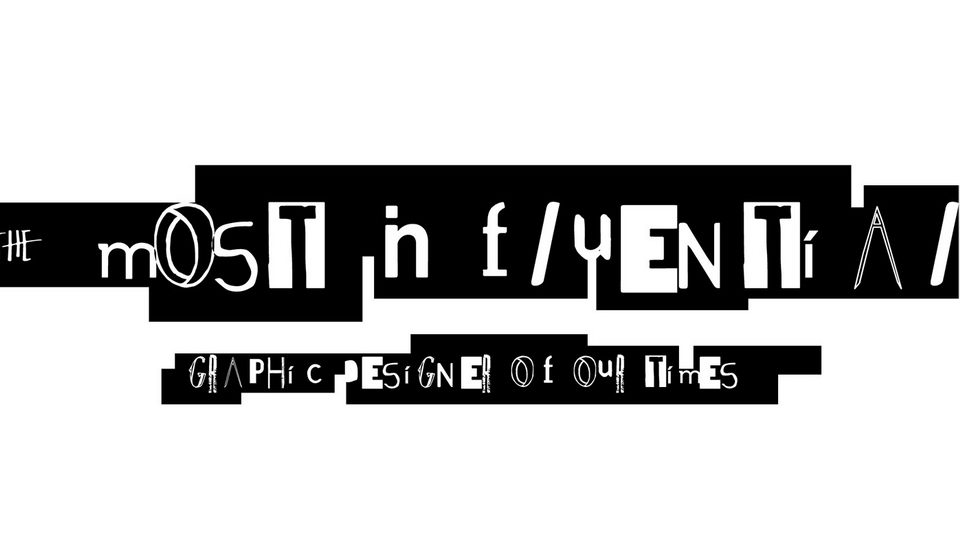
Cool David Carson Font Ideas
Cool David Carson Font Ideas. Web je m’appel david carson. Web david carson font free download.
He revolutionised the industry with his unconventional 'grunge typography' and. Tags/ older posts in origins / 18 oct / 2016 ellen lupton. His covers for ray gun were bold and often disorienting.
Web Also, What Is David Carson’s Style?
He's Known For Breaking The Rules With Bizarre Typefaces And Idiosyncratic Layouts, More About Feel Than Logical Structure.
Web this typeface is also available within office applications. Categories, popular, designers, optional web font download and links to similar fonts. David carson is a prominent contemporary graphic designer and art director.
Web david carson is an icon in the graphic design game, potentially the most famous commercial graphic designer ever. His covers for ray gun were bold and often disorienting. David carson font is a unique hand/finger gestures look typeface to use with your fun and quirky design projects.
Bagi David Carson, Font Harus Mempunyai Ekspresi Agar Memperkuat Arti.